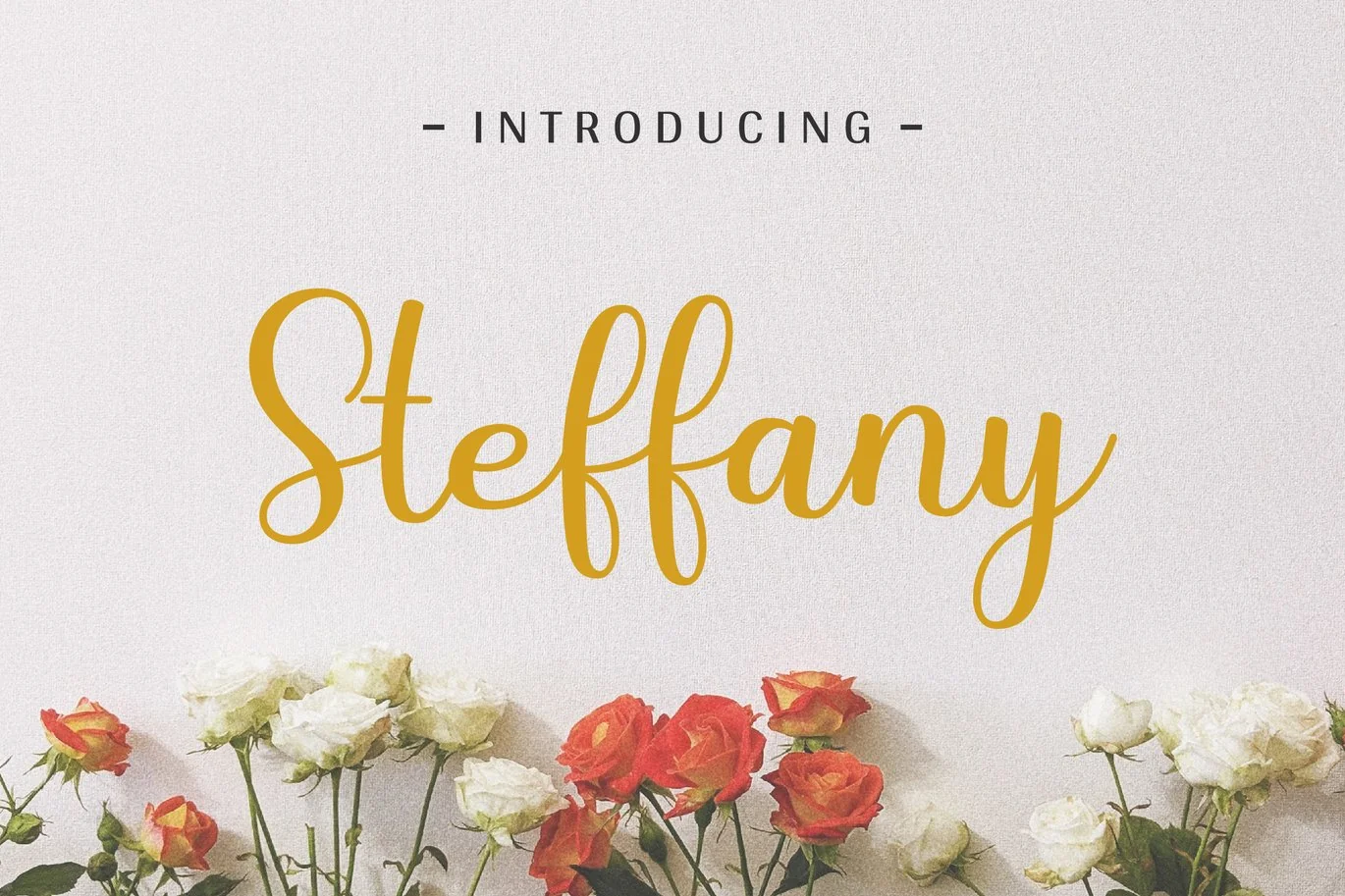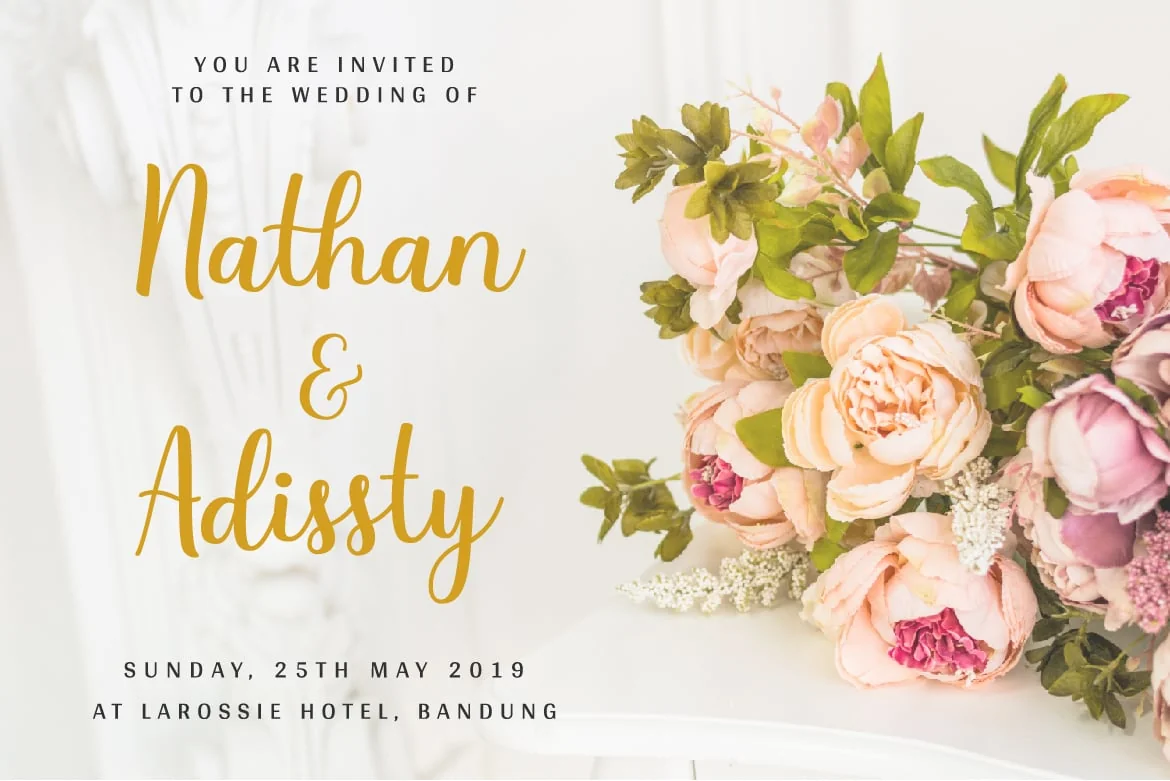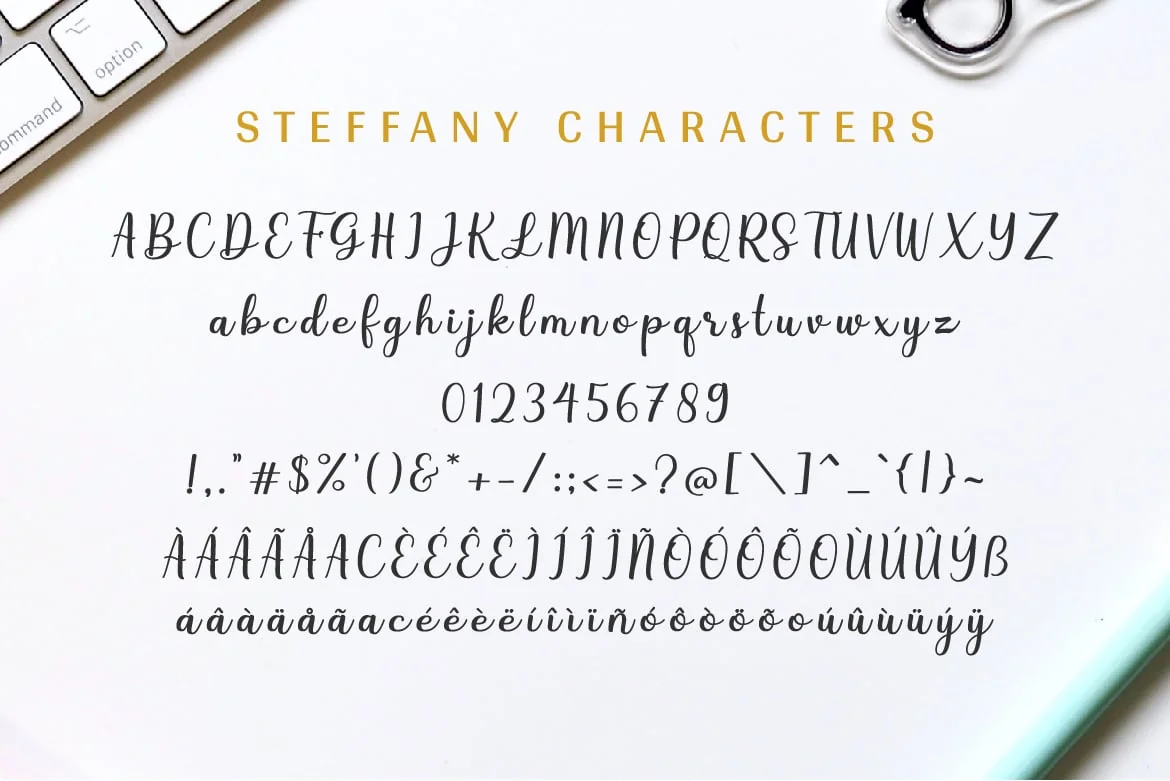
Steffany – Handwriting Font
Steffany is a beautiful handwriting font that works great in small and big size.
This font is best used for logo & branding, wedding invitation, product packaging, signature, diy, decoration, label, photography, and everything that needs a creative touch